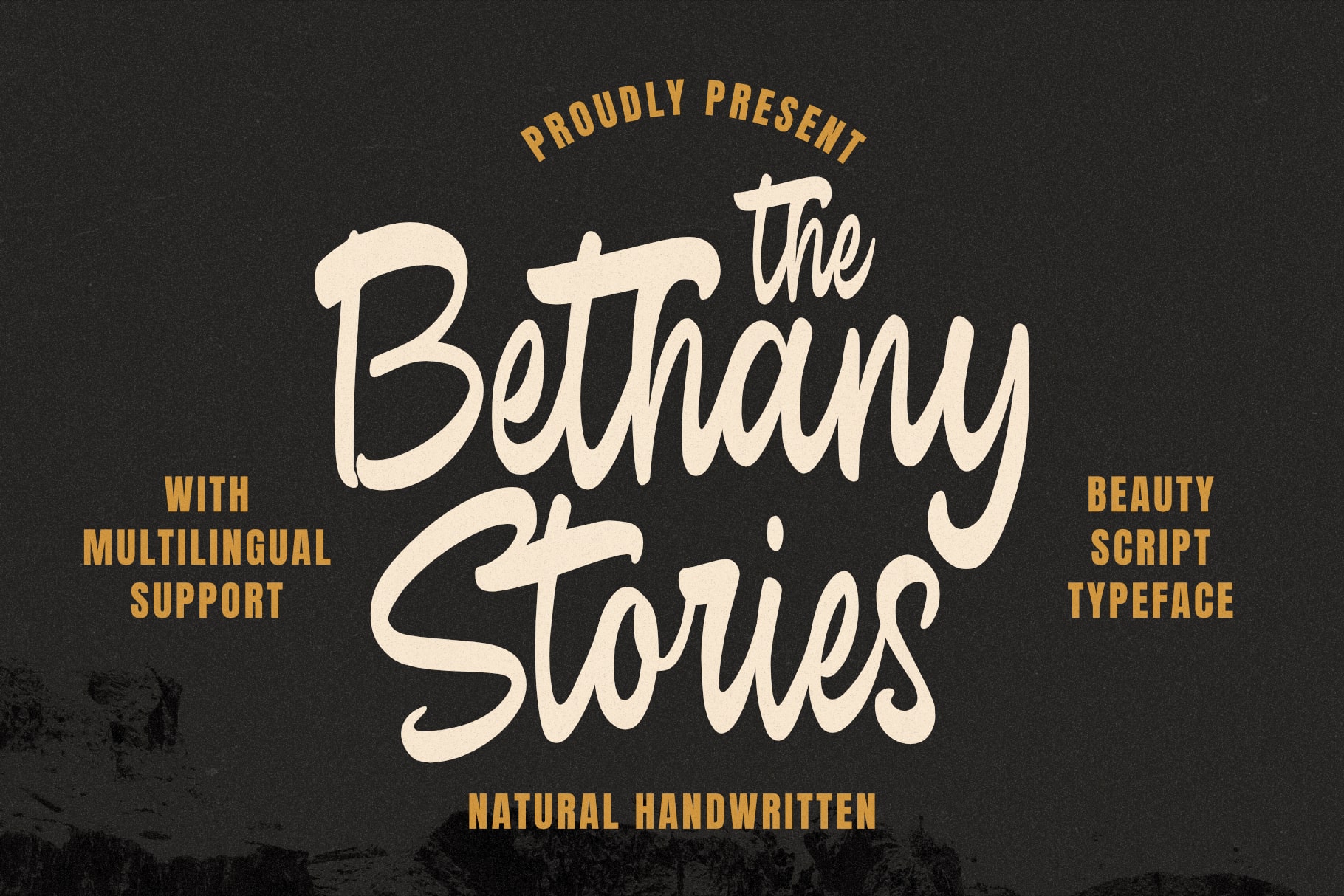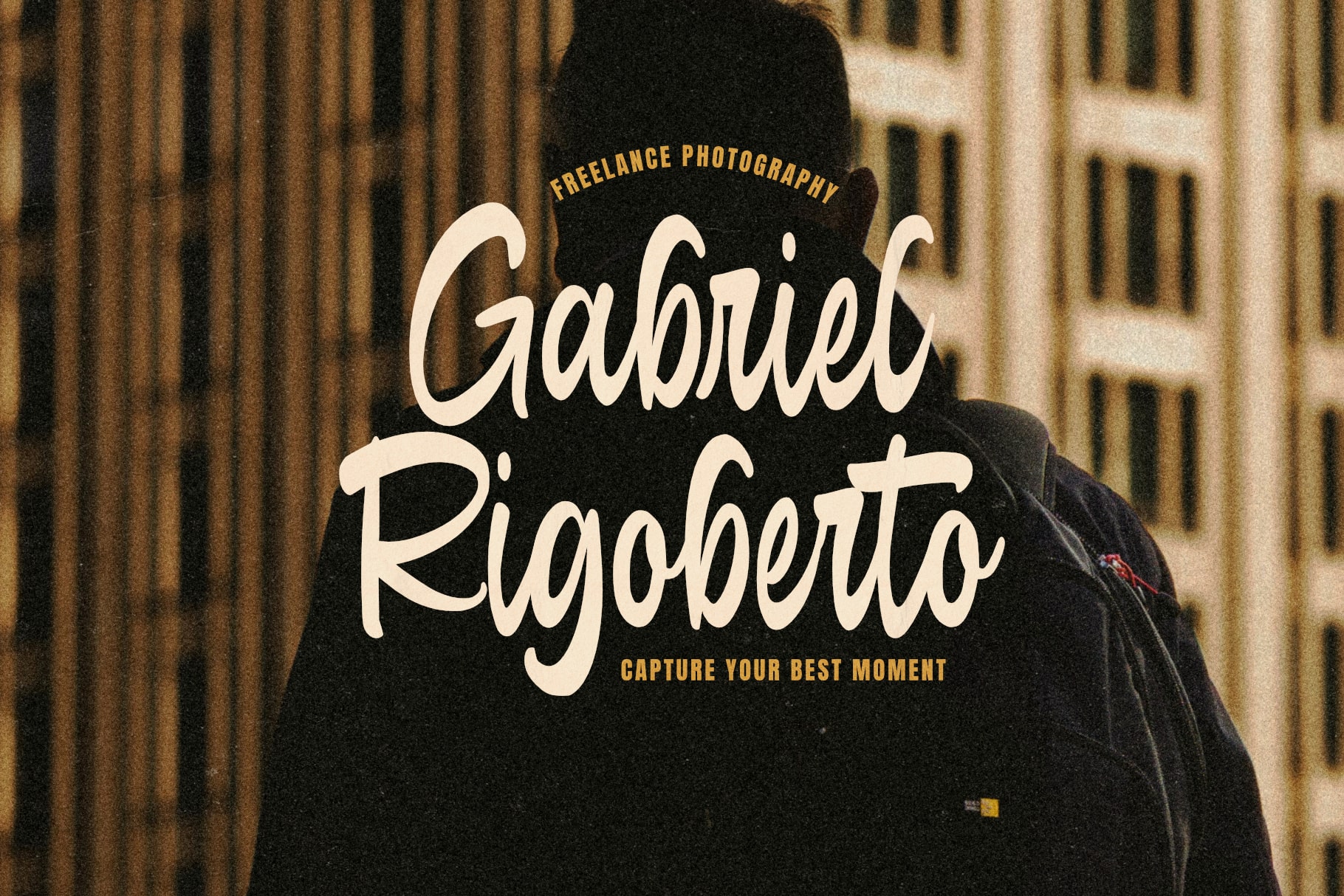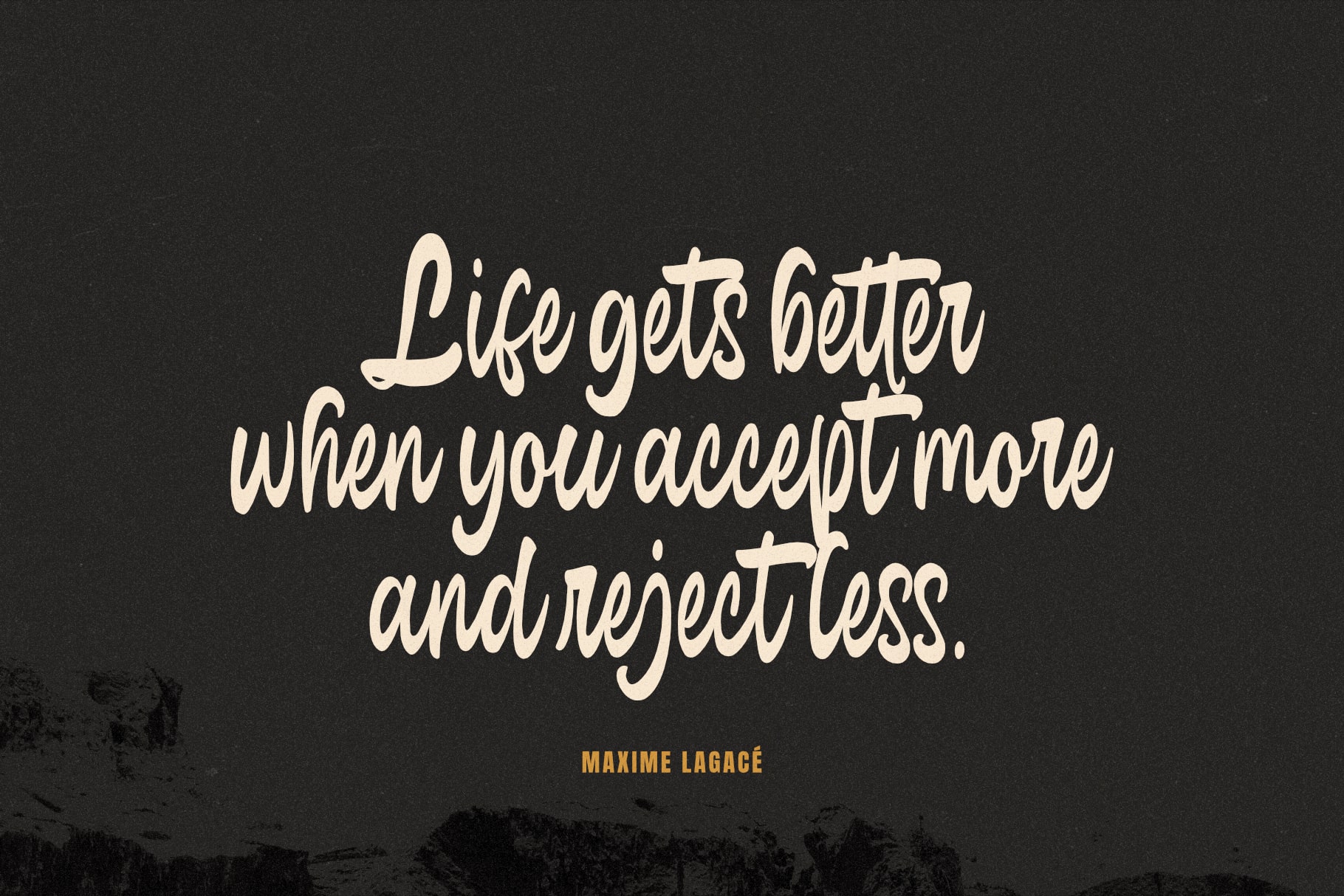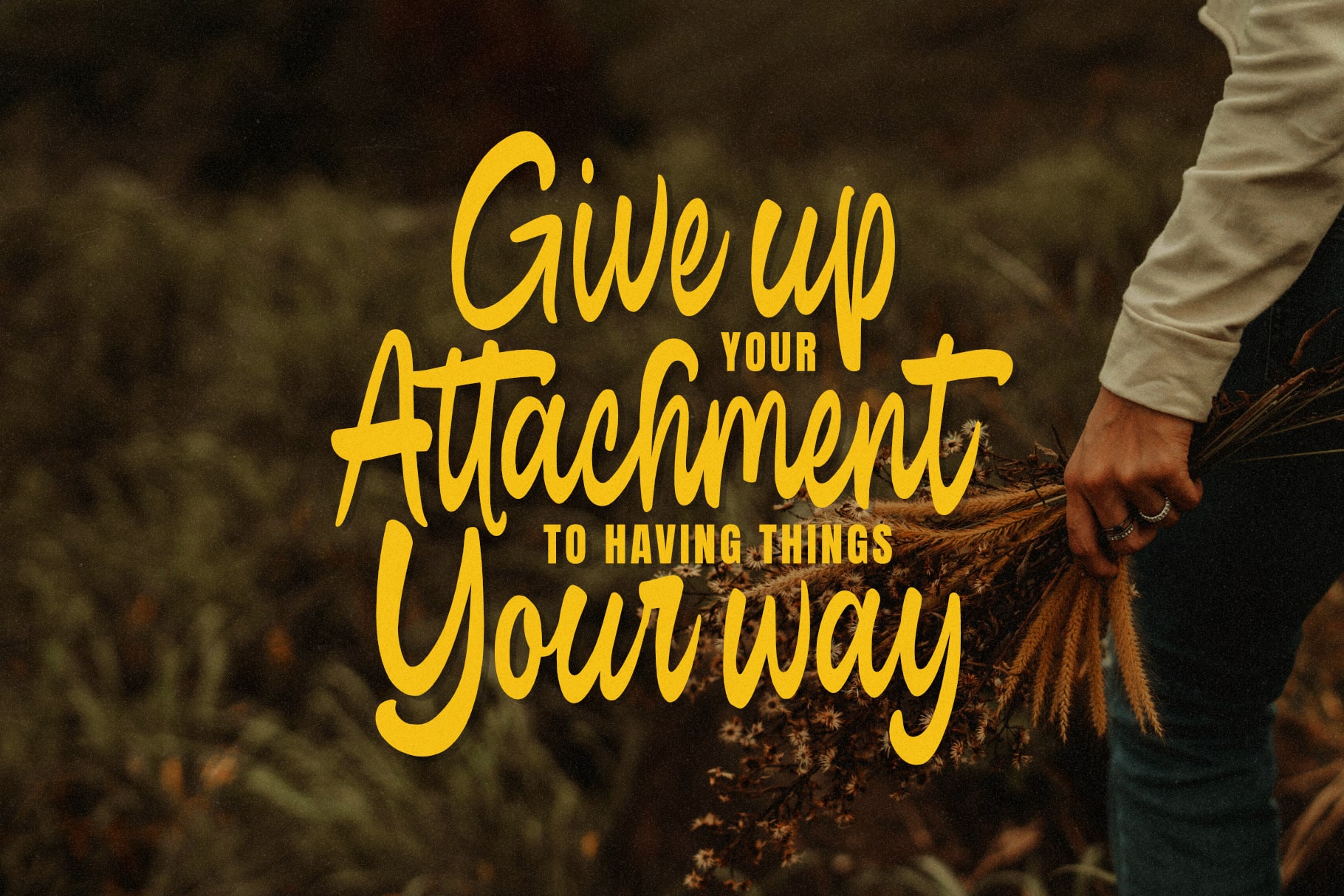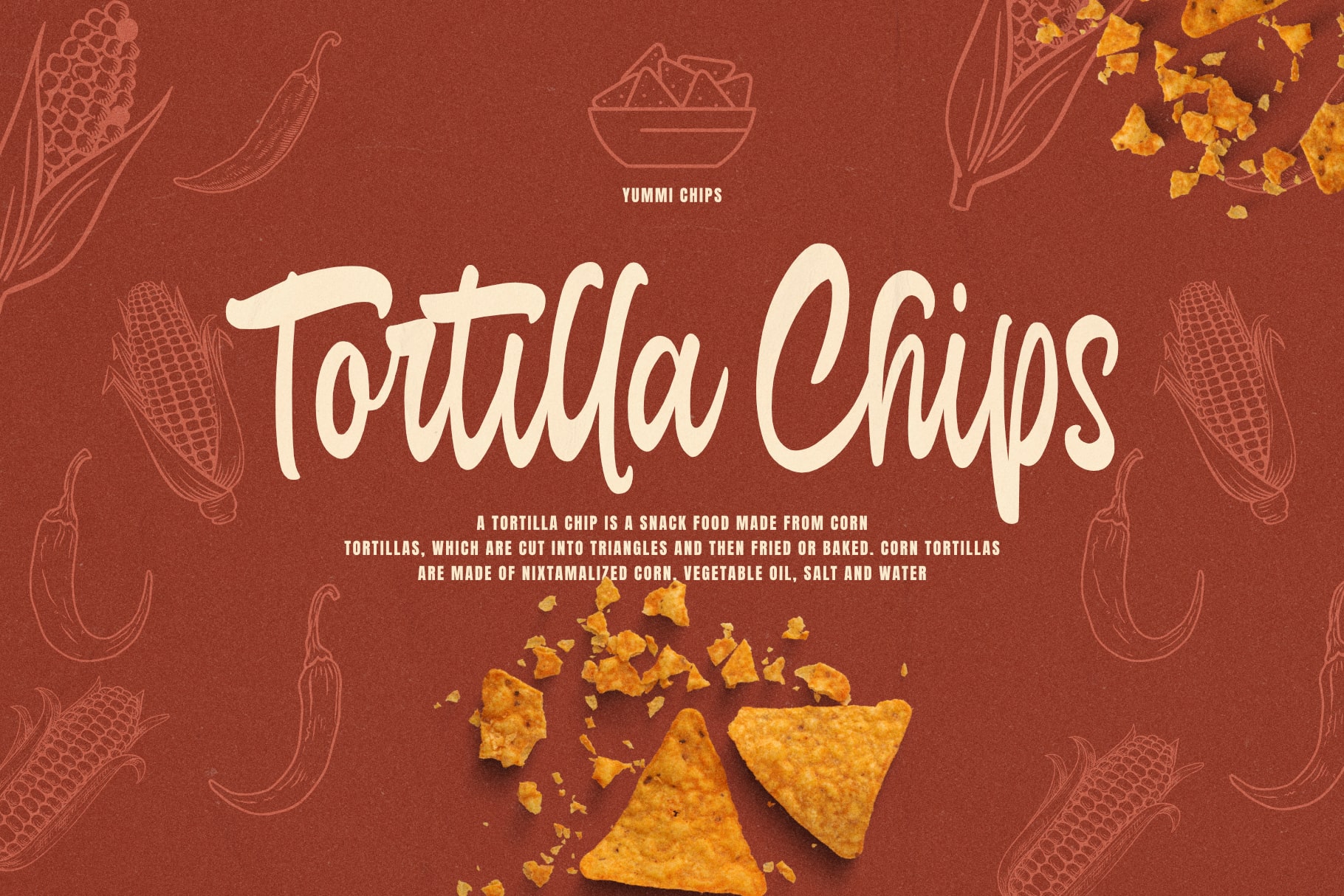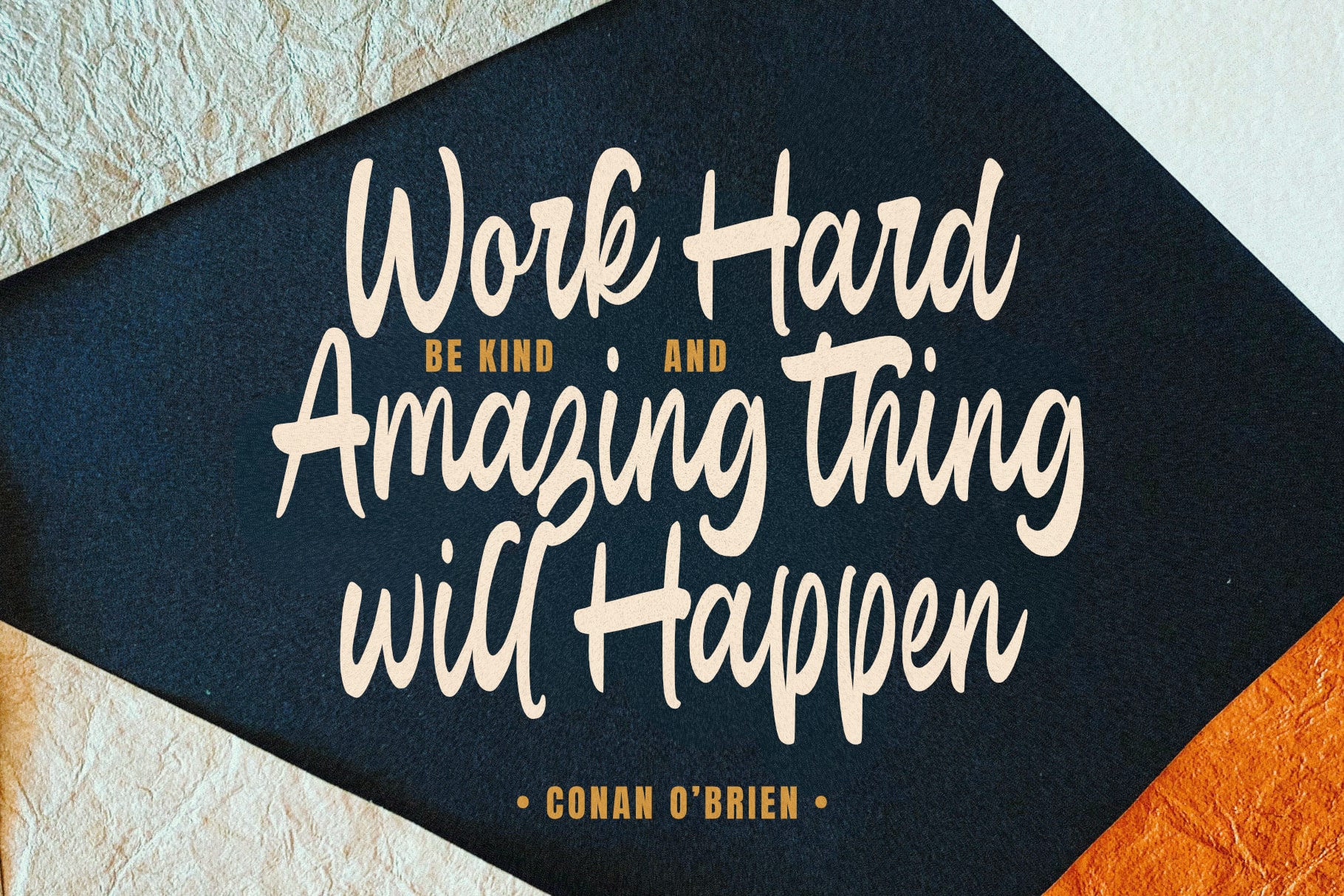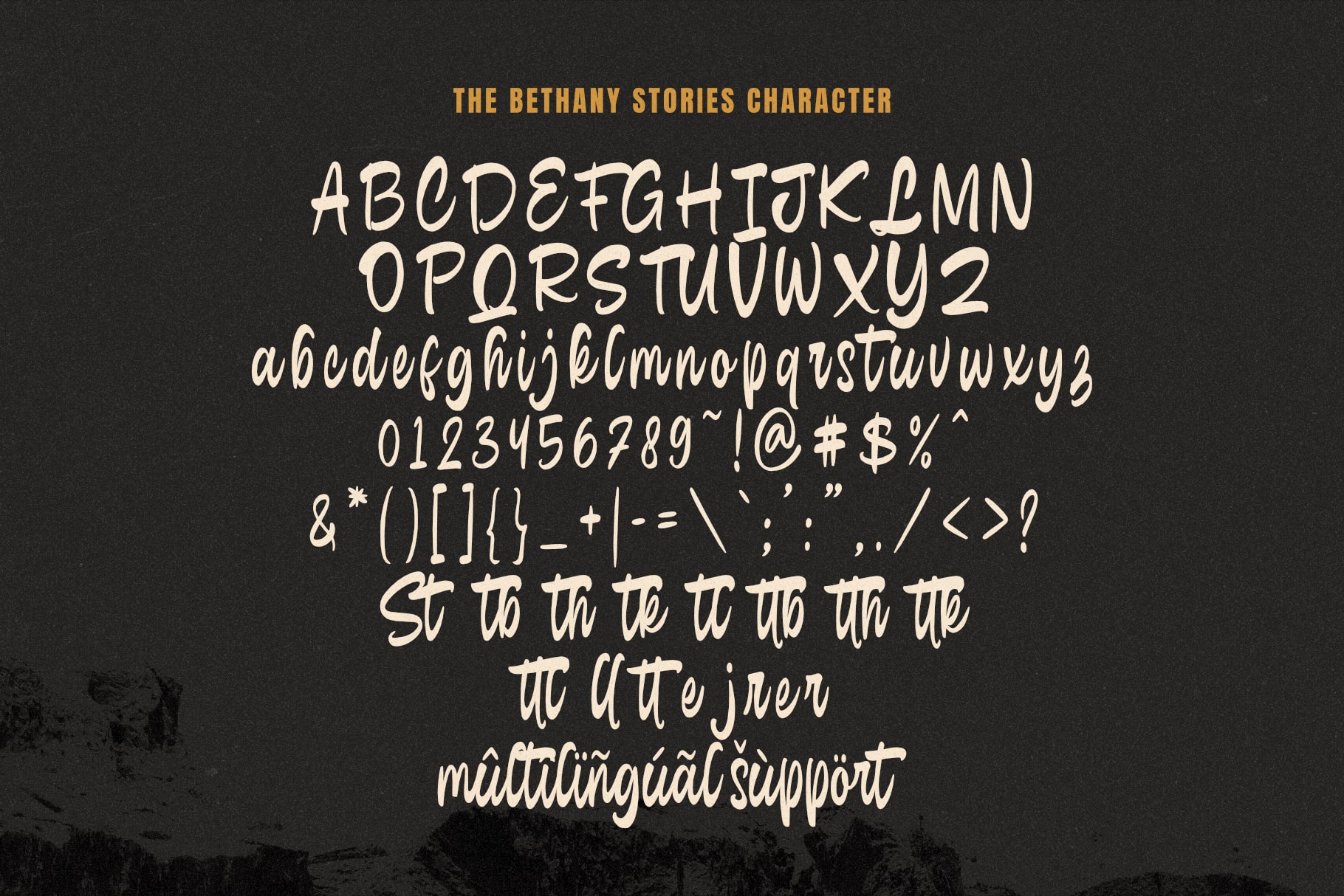
- The Bethany Stories Handwritten Script
The Bethany Stories font is a bold and vibrant handwritten script that combines the personal touch of hand lettering with the impact of a statement piece. With its confident strokes and pronounced character forms, this font captures the essence of storytelling and expression. Designed to make a striking impression, The Bethany Stories is perfect for projects that demand attention and aim to convey powerful messages.
This font’s robust and flowing script mimics the natural variations of handwriting, bringing a dynamic and authentic feel to your designs. Its boldness makes it particularly suitable for headlines, brand identities, and promotional materials where you want the text to stand out and grab the viewer’s attention.
The Bethany Stories encourages creativity and bold expression in your designs. Each letter is crafted to tell a story, making your words resonate with a personal and impactful voice. Whether you’re creating book covers, advertising campaigns, or inspirational quotes, The Bethany Stories font adds a memorable and expressive flair to your projects.
Embrace the bold and narrative-driven spirit of The Bethany Stories handwritten font, and let your designs speak volumes with its standout script.